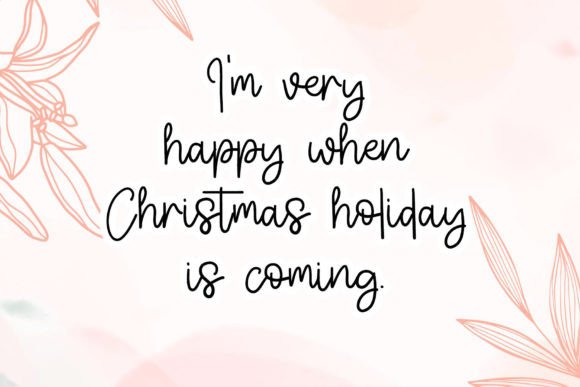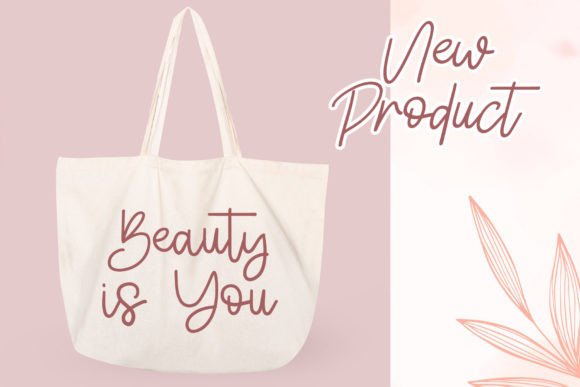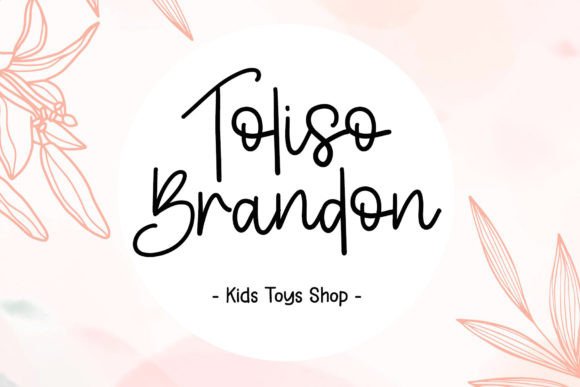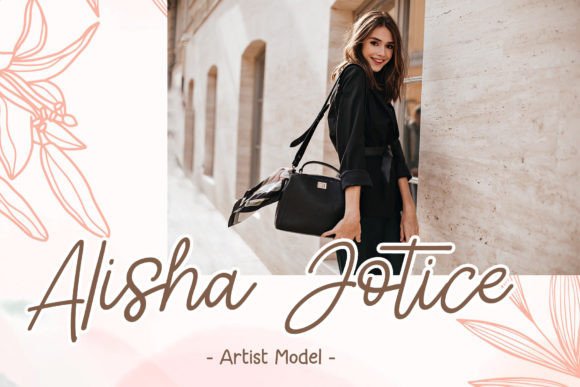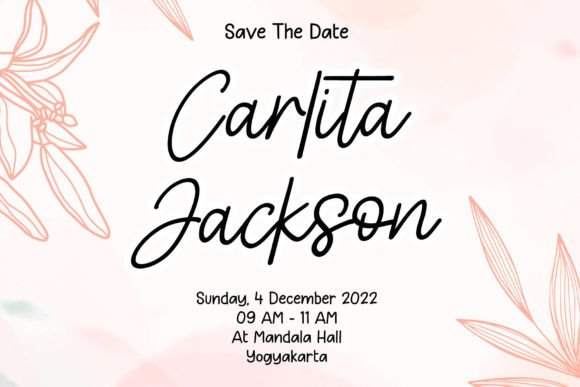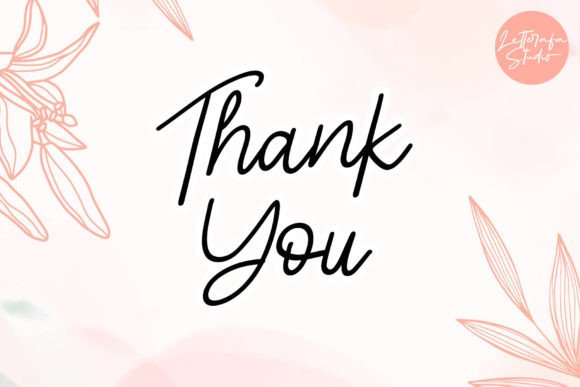
Introducing Fastina Ootsine: The Perfect Handwritten Font for Designers and Crafters
Are you a designer or crafter looking for a unique and versatile font to elevate your creative projects? Look no further than Fastina Ootsine, a simple yet charming handwritten font that’s perfect for a wide range of applications. In this article, we’ll dive into the features and benefits of Fastina Ootsine, and explore how it can be used to add a personal touch to your designs.
What is Fastina Ootsine?
Fastina Ootsine is a beautifully crafted handwritten font that’s designed to be both elegant and approachable. Its simple, flowing lines make it easy to read and understand, while its unique character set adds a touch of personality to any design. Whether you’re creating a logo, greeting card, or packaging design, Fastina Ootsine is the perfect choice.
Features of Fastina Ootsine
So what makes Fastina Ootsine so special? Here are just a few of its key features:
- Handwritten style: Fastina Ootsine has a warm, handwritten feel that’s perfect for adding a personal touch to your designs.
- Simple and elegant: The font’s simple lines and elegant curves make it easy to read and understand, while its unique character set adds a touch of sophistication.
- Versatile: Fastina Ootsine is perfect for a wide range of applications, from logos and greeting cards to packaging and book titles.
Use Cases for Fastina Ootsine
So what can you use Fastina Ootsine for? The possibilities are endless! Here are just a few ideas to get you started:
- Logos: Fastina Ootsine is perfect for creating unique and memorable logos that reflect your brand’s personality.
- Greeting cards: Add a personal touch to your greeting cards with Fastina Ootsine’s warm and elegant font.
- Package design: Use Fastina Ootsine to create eye-catching packaging that stands out on store shelves.
- Brand identity: Fastina Ootsine is a great choice for creating a consistent brand identity across all your marketing materials.
- Craft design: Add a touch of personality to your craft designs, such as handmade jewelry or textiles, with Fastina Ootsine.
- DIY projects: Fastina Ootsine is perfect for DIY projects, such as scrapbooking, journaling, or creating handmade cards.
- Book titles: Use Fastina Ootsine to create eye-catching book titles that reflect the personality of your book.
- Wedding invitations: Add a touch of elegance to your wedding invitations with Fastina Ootsine’s beautiful font.
- Packaging: Use Fastina Ootsine to create unique and eye-catching packaging that reflects your brand’s personality.
Why Choose Fastina Ootsine?
So why choose Fastina Ootsine over other fonts? Here are just a few reasons:
- Unique and distinctive: Fastina Ootsine has a unique and distinctive style that’s sure to set you apart from the competition.
- Elegant and sophisticated: The font’s elegant lines and curves make it perfect for creating sophisticated and high-end designs.
- Easy to read: Fastina Ootsine is easy to read and understand, making it perfect for designs where clarity is key.
- Versatile: The font is versatile and can be used for a wide range of applications.
| Author | Letterafa Studio |
In conclusion, Fastina Ootsine is a beautiful and versatile handwritten font that’s perfect for designers and crafters looking to add a personal touch to their creative projects. With its simple and elegant lines, unique character set, and ease of use, Fastina Ootsine is the perfect choice for a wide range of applications. Whether you’re creating a logo, greeting card, or packaging design, Fastina Ootsine is sure to impress.